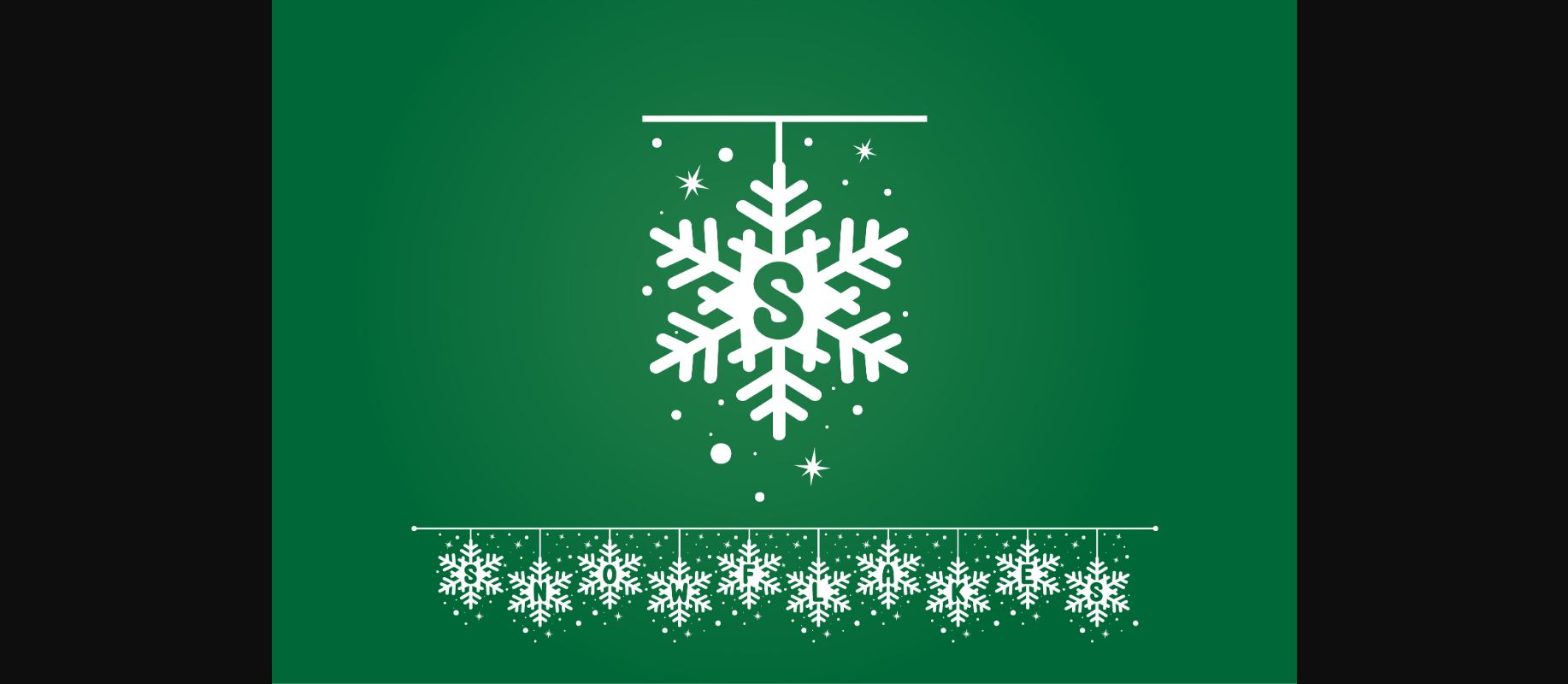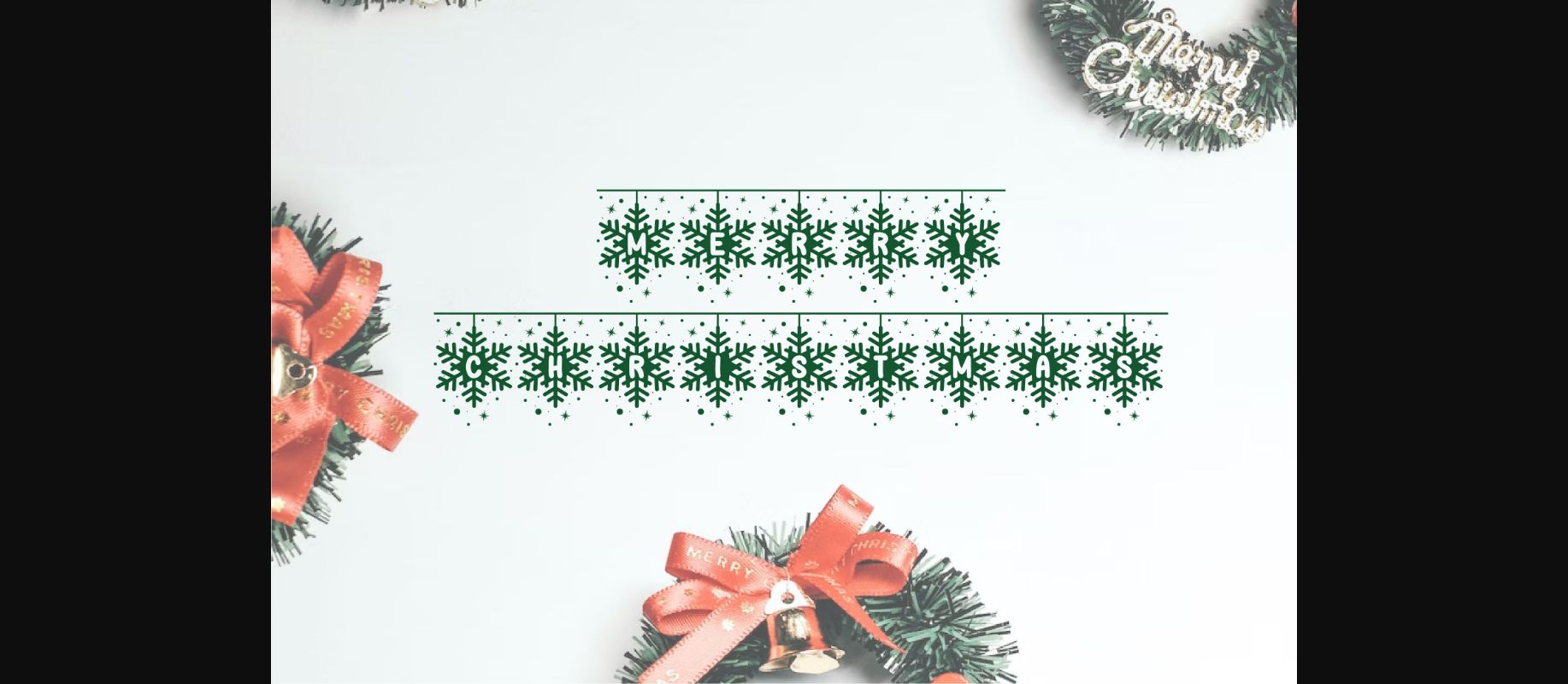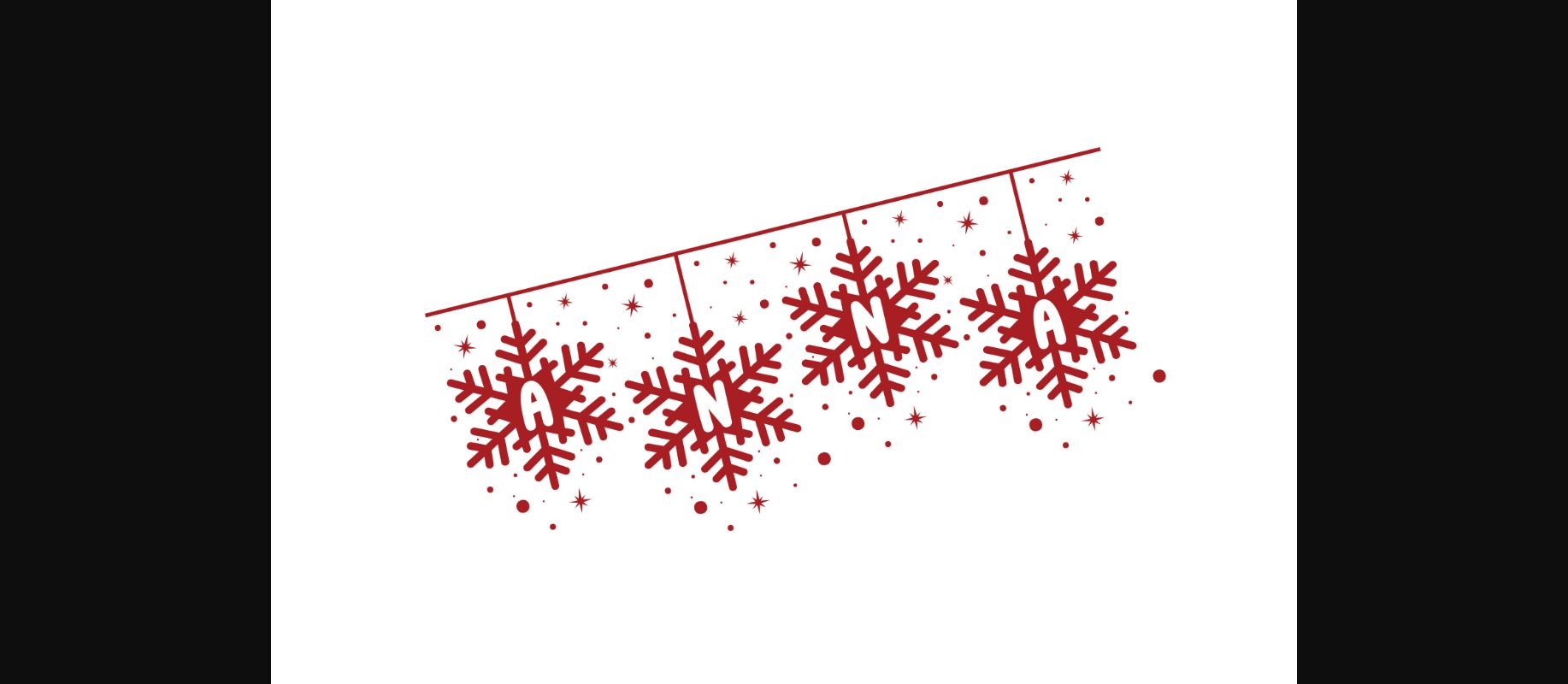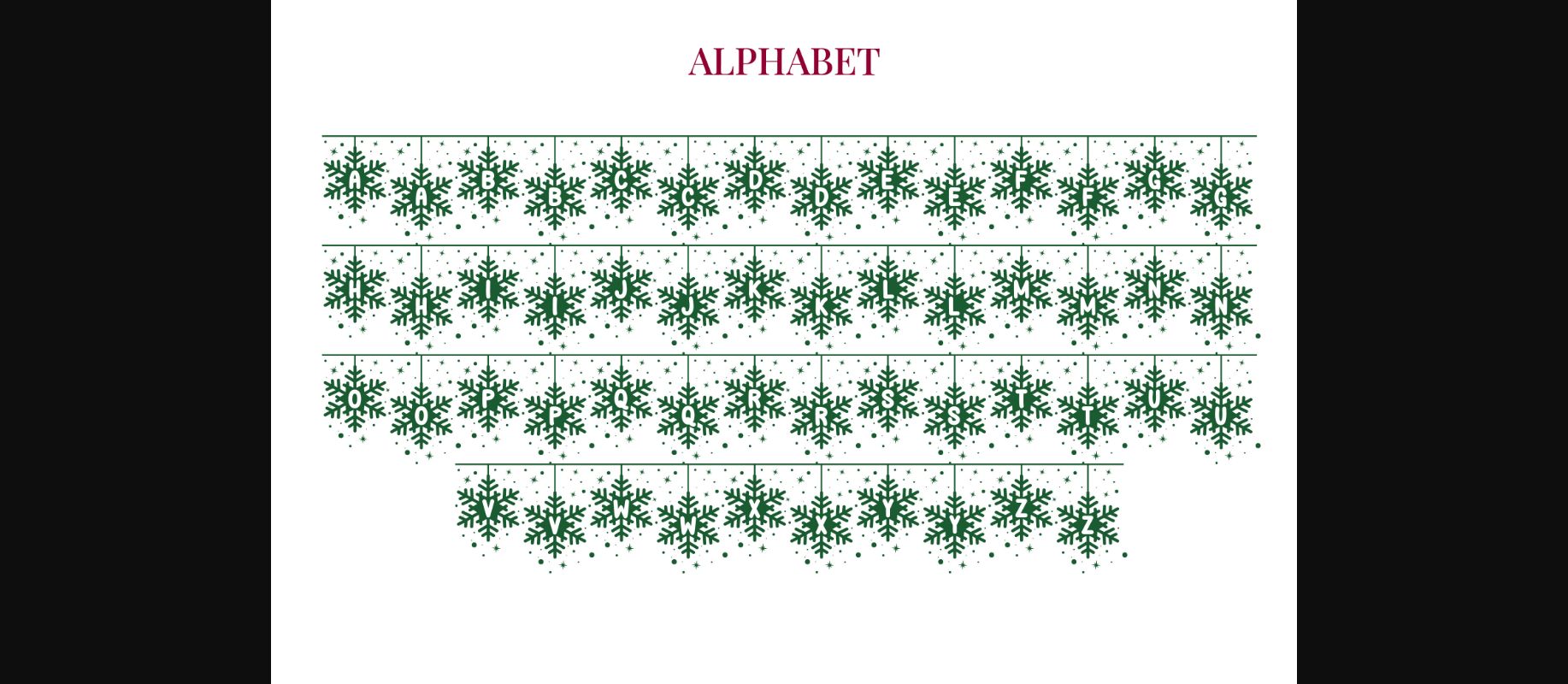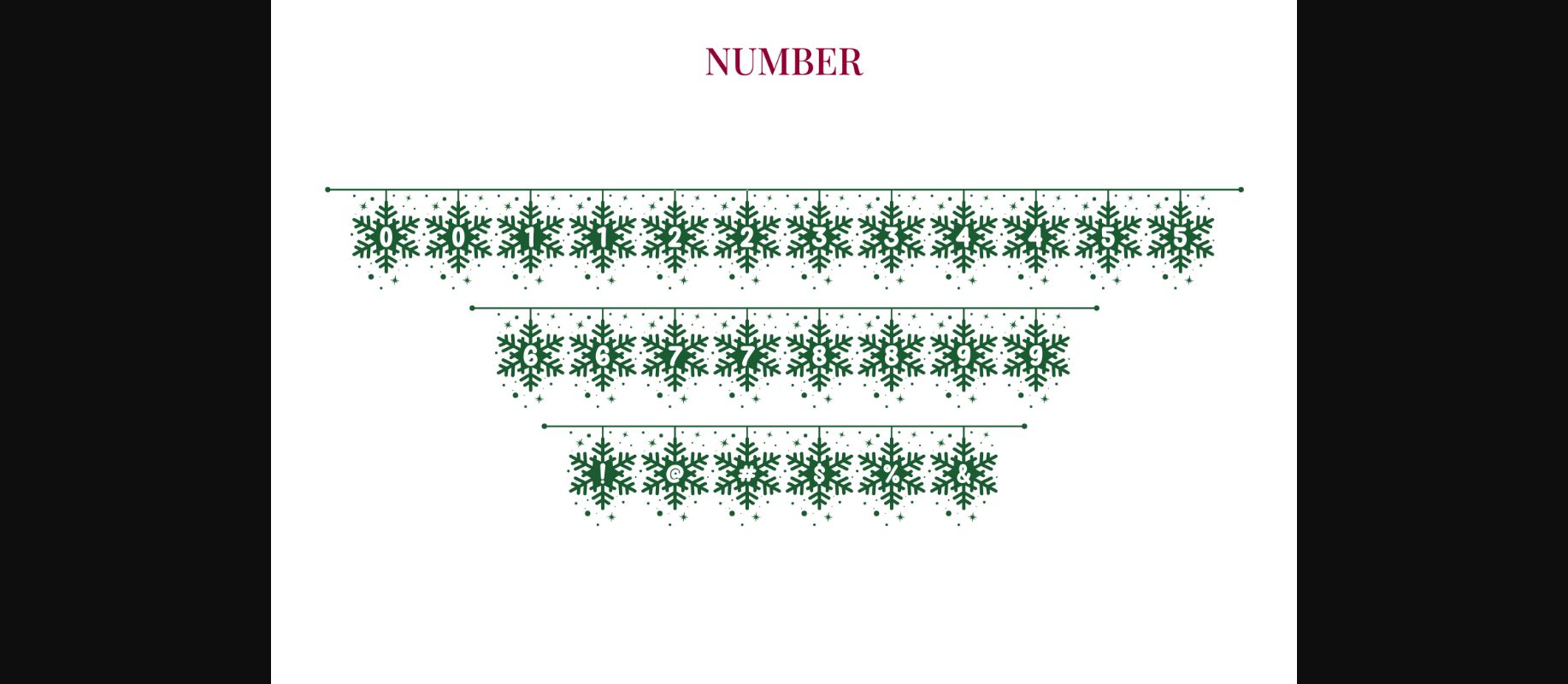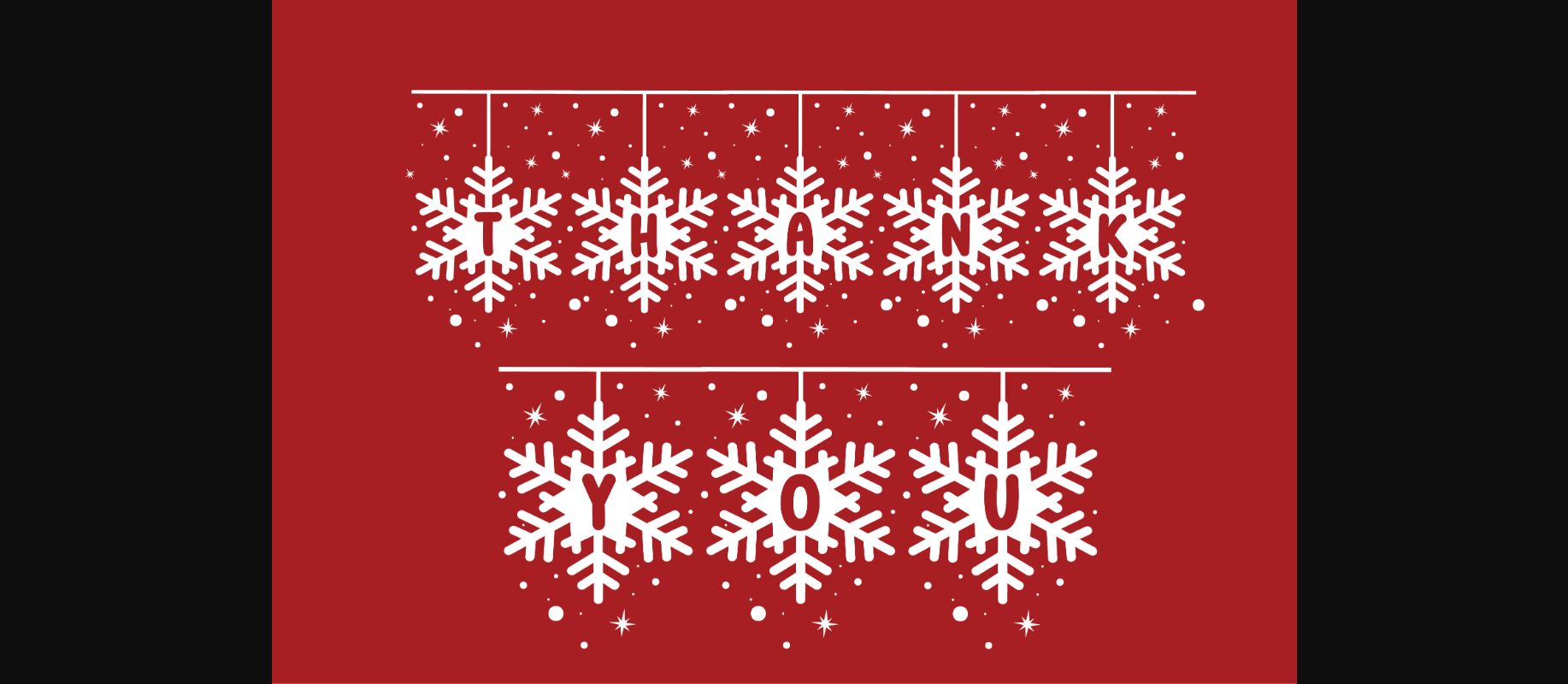
Snowflakes String Font
About Snowflakes String Font
Snowflakes String is cool and unique decorative display font perfect for Christmas. This font is inspired by christmas ornament, which makes it suitable for creating cute holiday t-shirts, stickers, cover books, children’s books, social media posts, and much more!